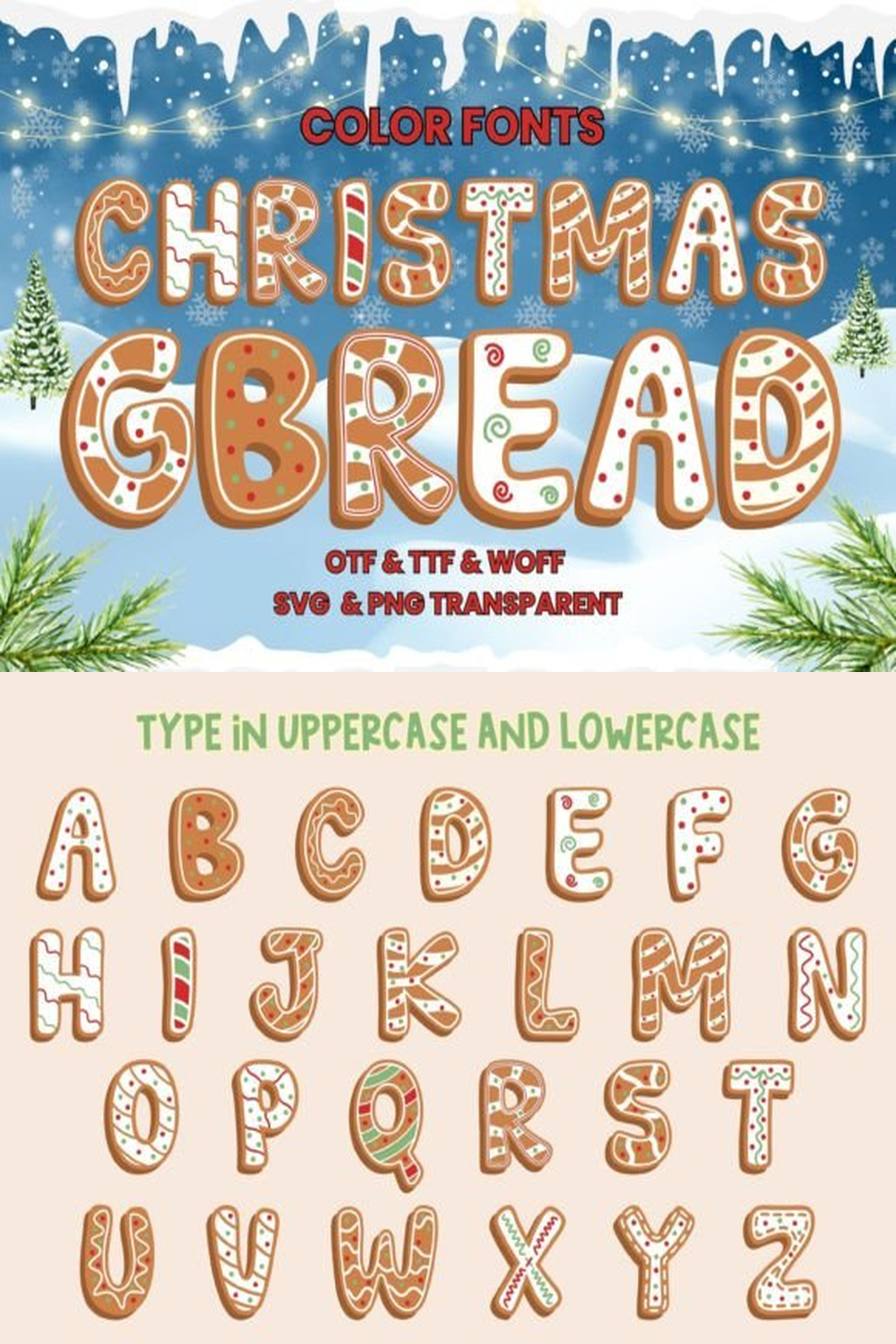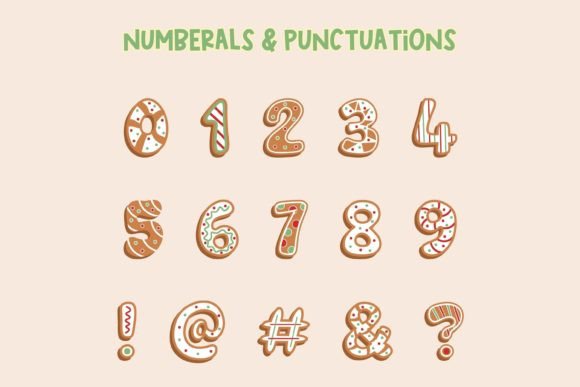
Christmas Gbread Font
About the Christmas Gbread Font
Presenting Christmas Gbread Font, a unique and stylish typeface that will make your work stand out. Introducing Christmas Gbread, a vivid and playful color font that brings a touch of enchantment to every Christmas-themed design. Its captivating character effortlessly melds with t-shirt designs, digital imprints, craft creations, decorative cards, and extensive projects.